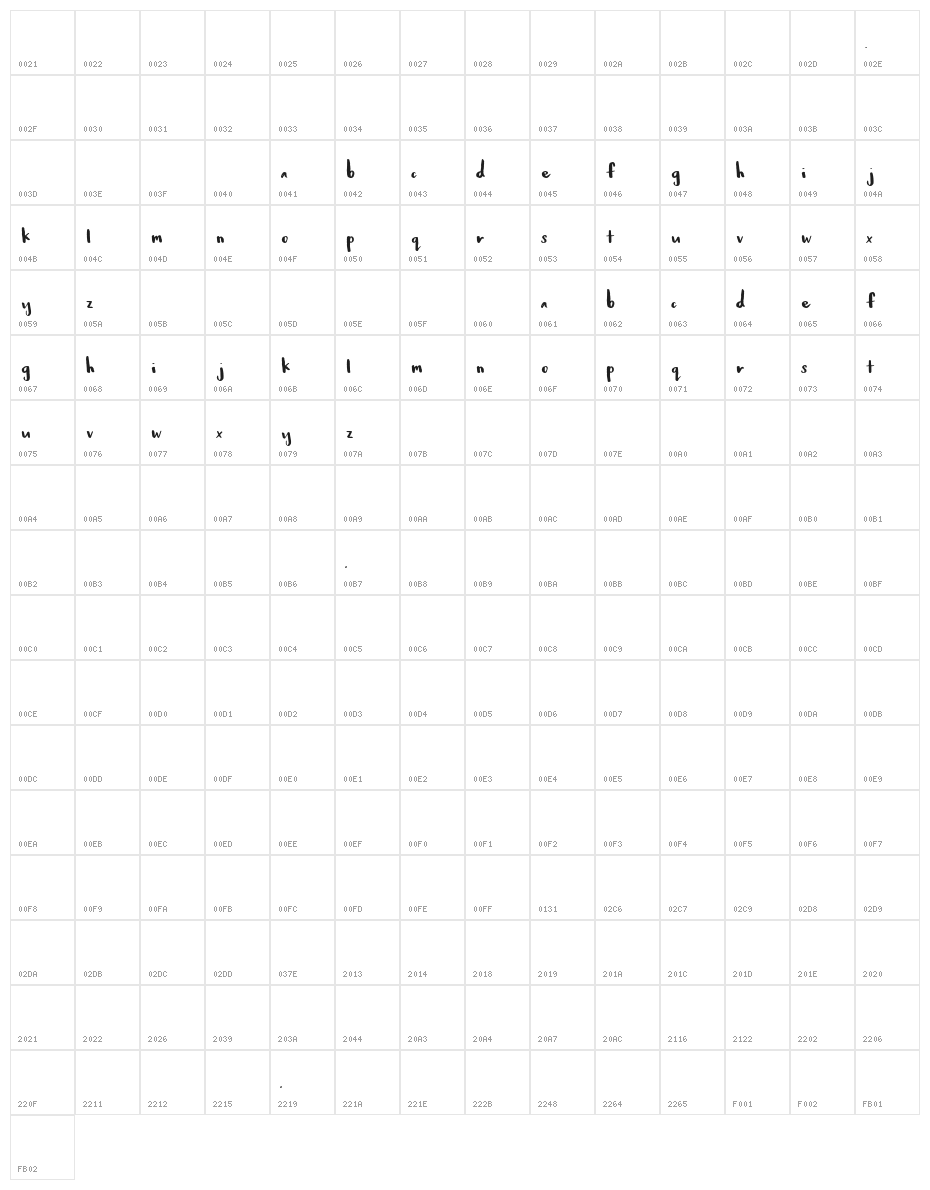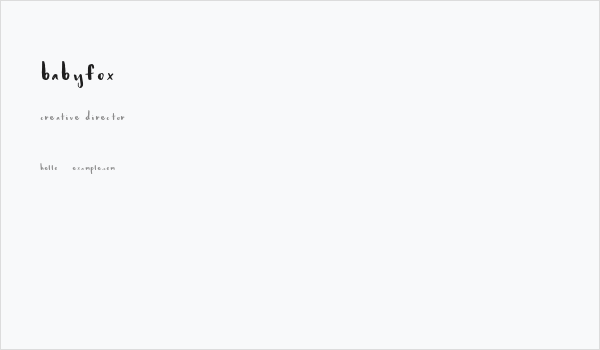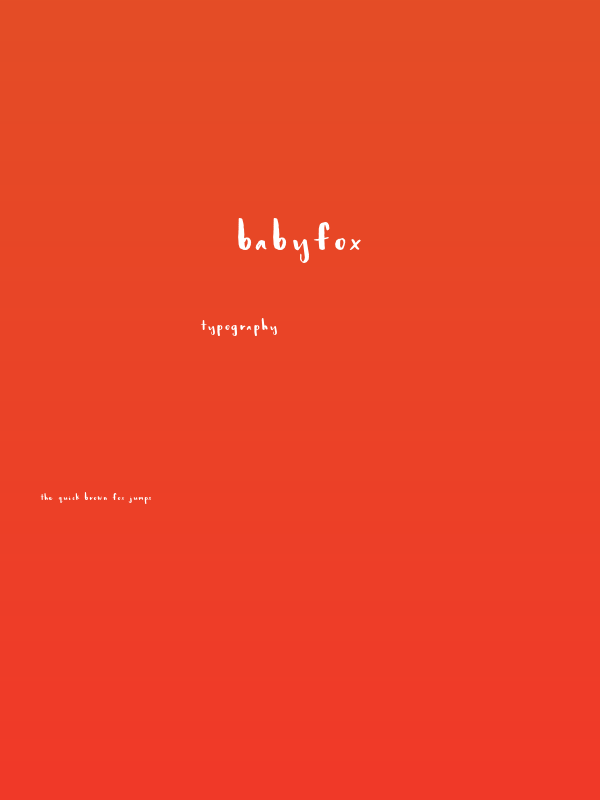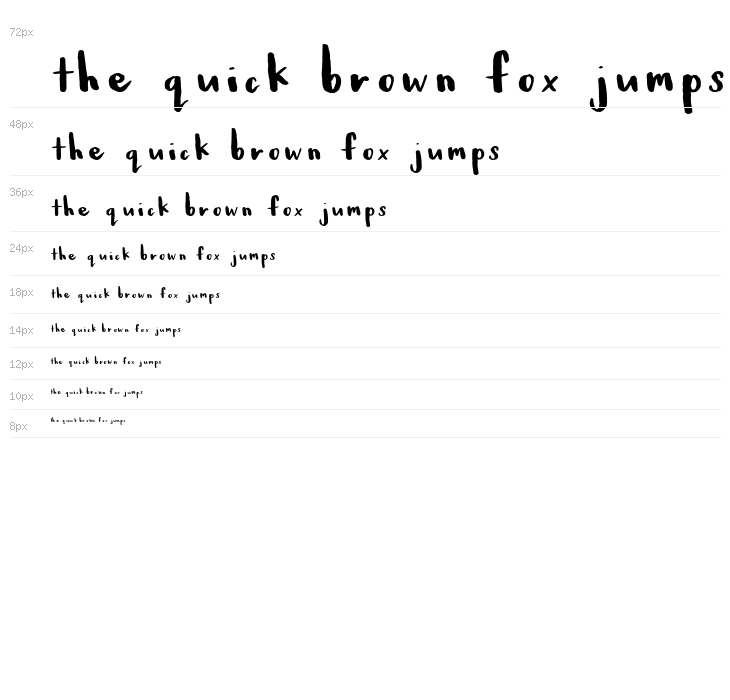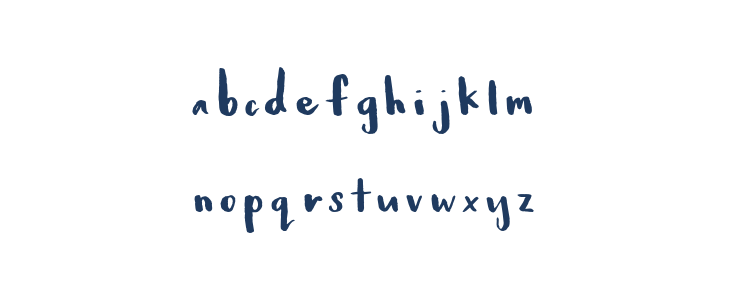
babyfox Font
babyfox Description
This font features a playful and whimsical handwritten style, characterized by its uneven strokes and casual appearance. The letters have a slightly irregular baseline, adding to the informal and friendly feel. The strokes vary in thickness, giving it a dynamic and lively look. The overall design is reminiscent of brush lettering, with a natural flow and organic shapes. This font is suitable for projects that require a personal touch or a creative flair, such as invitations, greeting cards, or children's book illustrations. Its unique style makes it stand out, providing a sense of warmth and approachability.
| Overall Style | Whimsical, Playful |
| Proposed Projects | Ideal for invitations, greeting cards, children's books, and creative projects. |